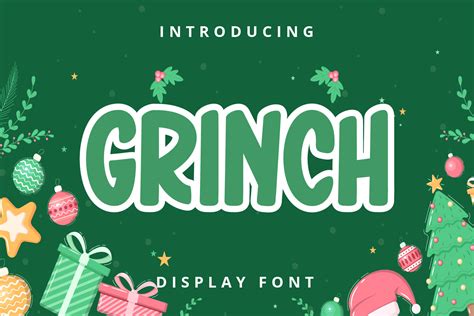
The font is licensed as free for personal use. Grinched also known as grinch font is a fancy, cartoon font designed by sharkshock. You can download and use the font free for personal projects. Web looking for grinch fonts? Every font is free to download! Download the best free grinch fonts from our extensive collection and bring the holiday spirit into your designs! Create text graphics with grinch font. Perfect for cards, decorations, and more! Web you can download the font for free here. 1,900,249 downloads (214 yesterday) 20 comments free for personal use.